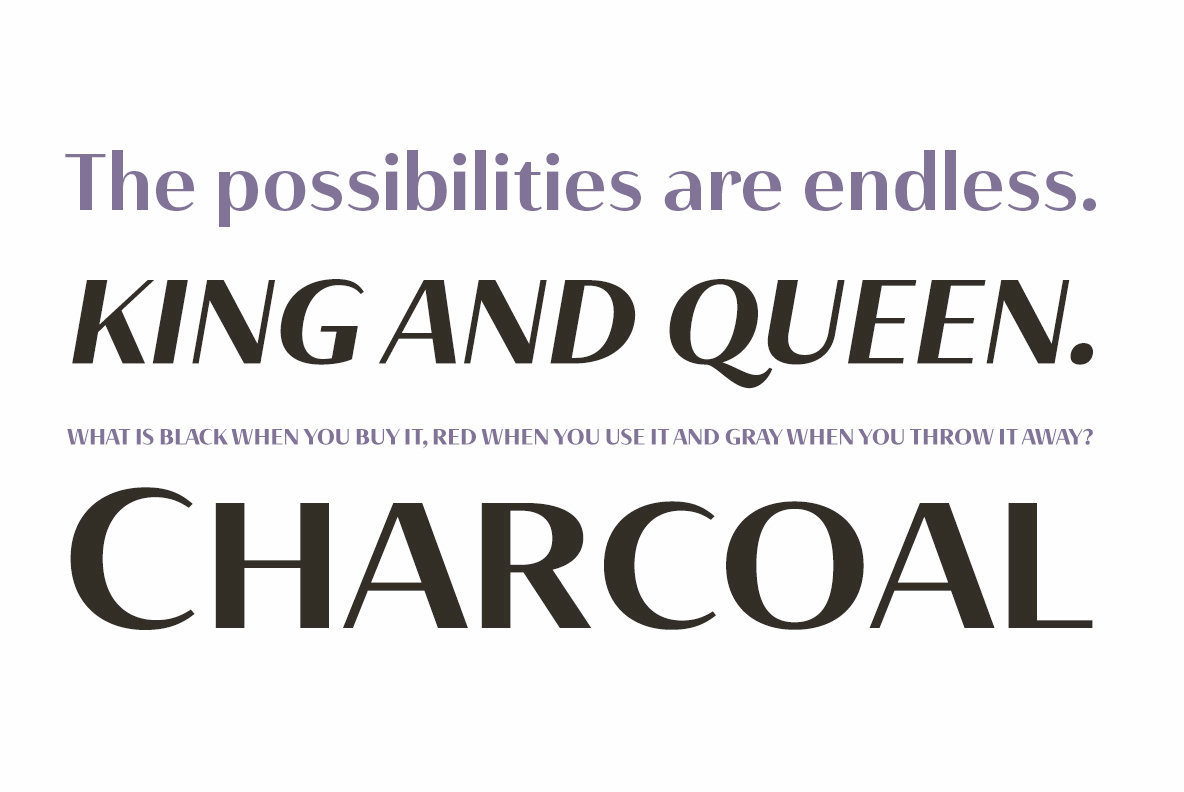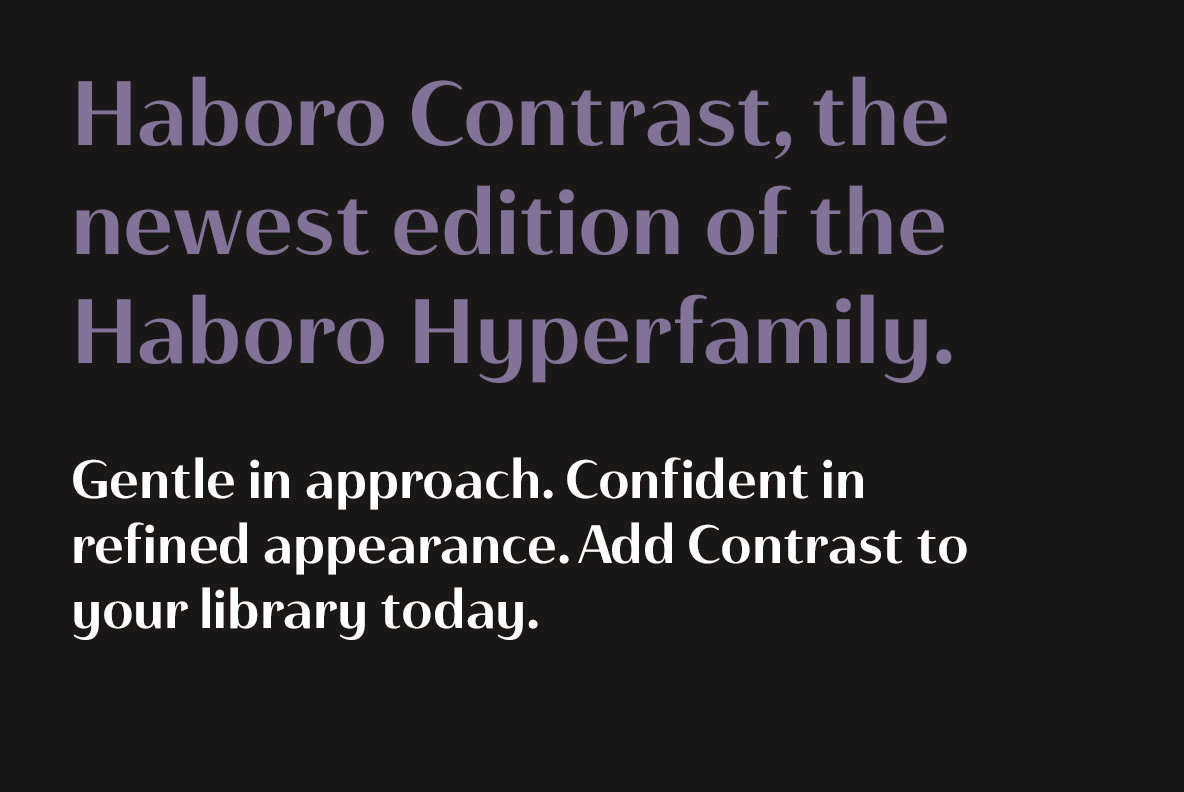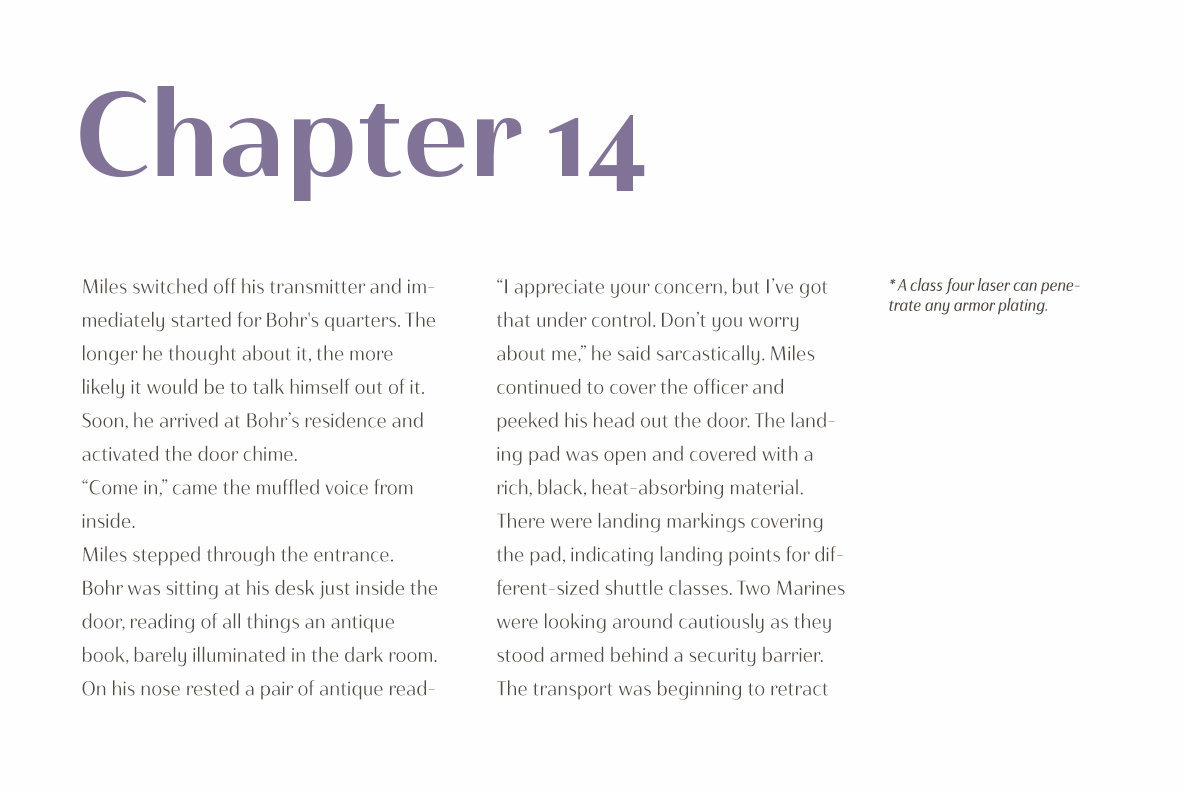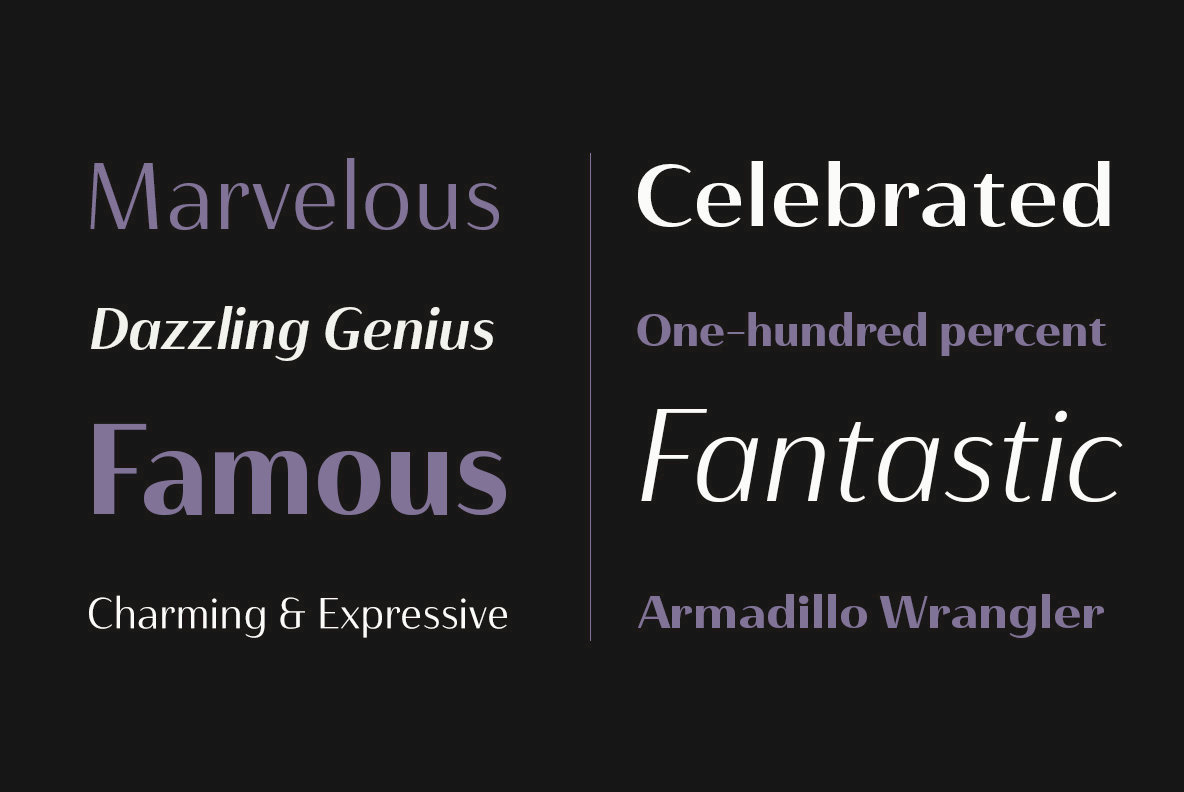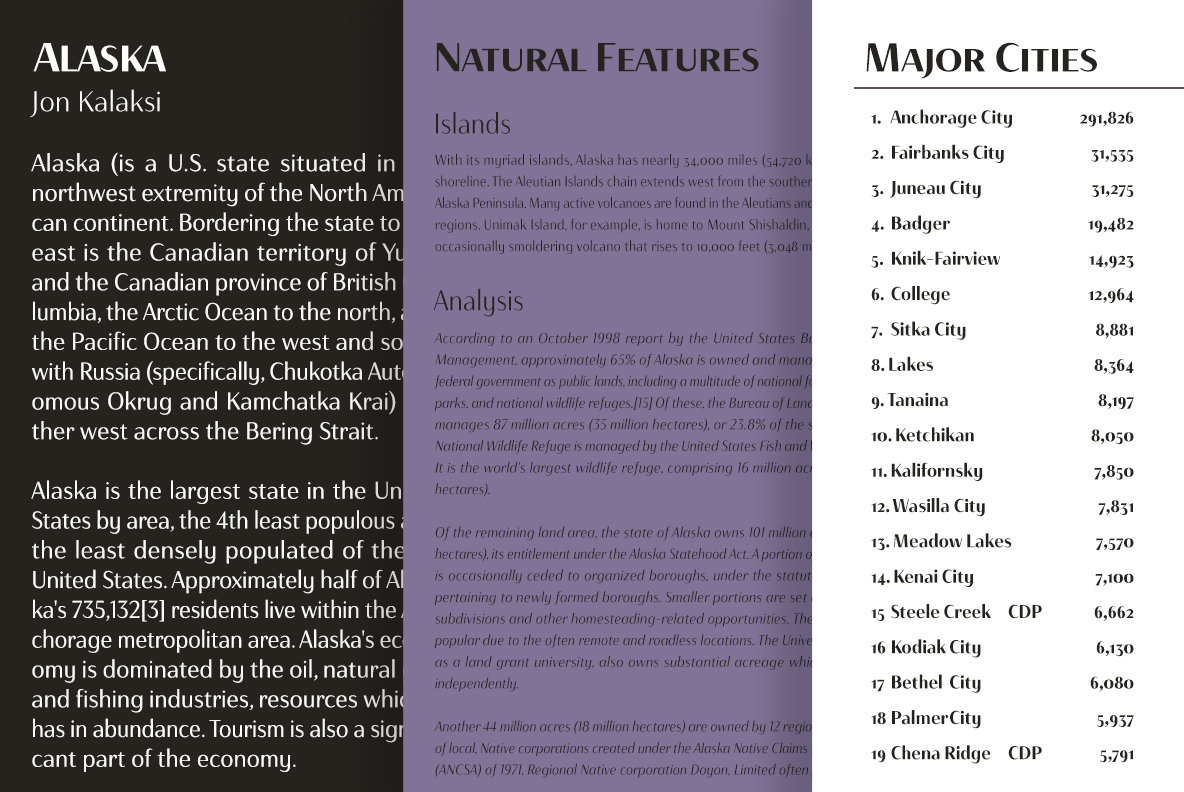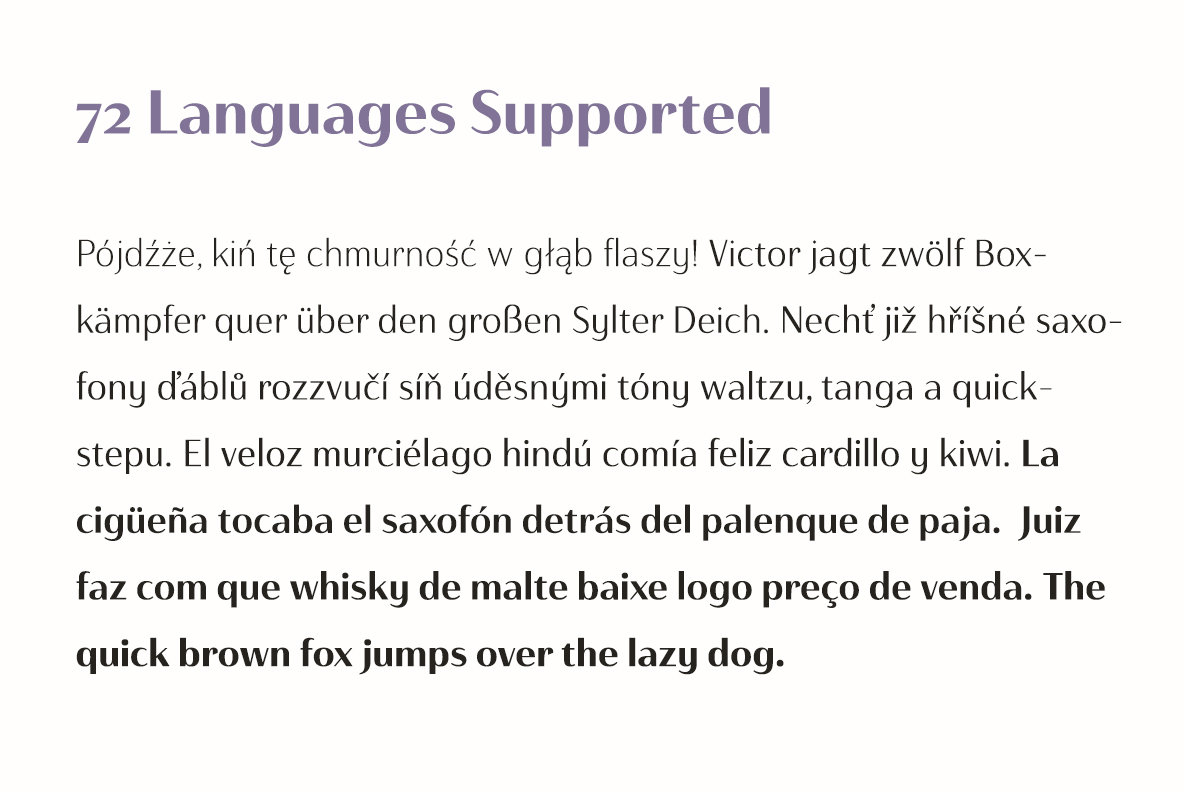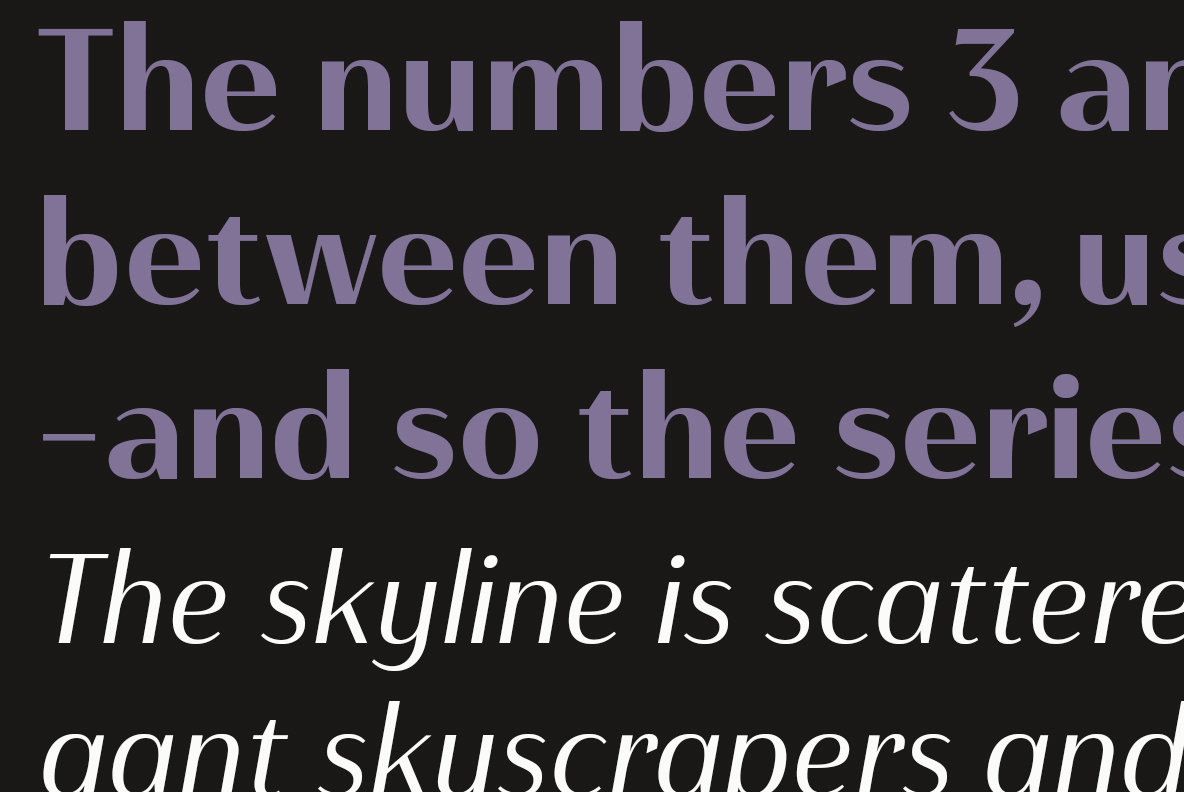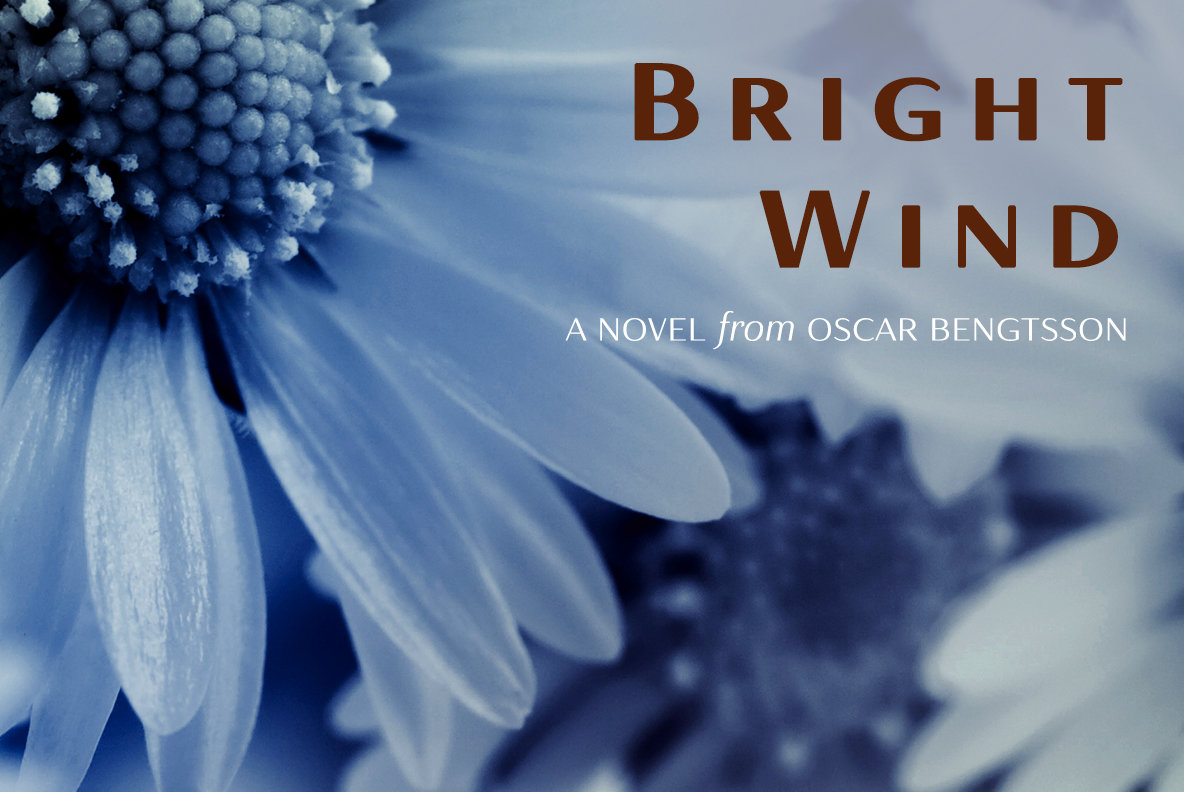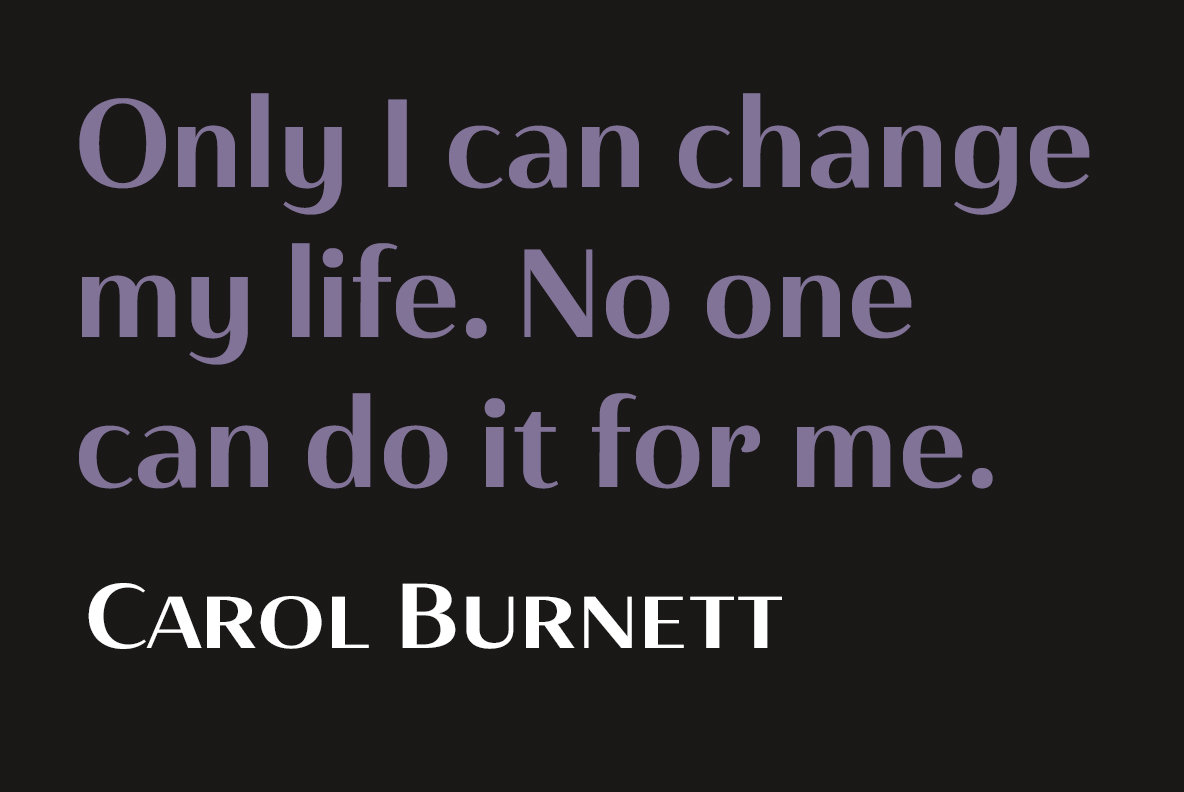
Haboro Contrast Font
Haboro Contrast (along with the rest of the Haboro family) has been tested for the web and is ready for use in both print and digital applications. Designed to serve as a display character for such publishing projects as magazines and company brochures, Contrast gives you comfort in having a great amount of versatility in the fonts you rely on. It's a prime example where high contrast simplicity lends itself to achieve excellent design results.